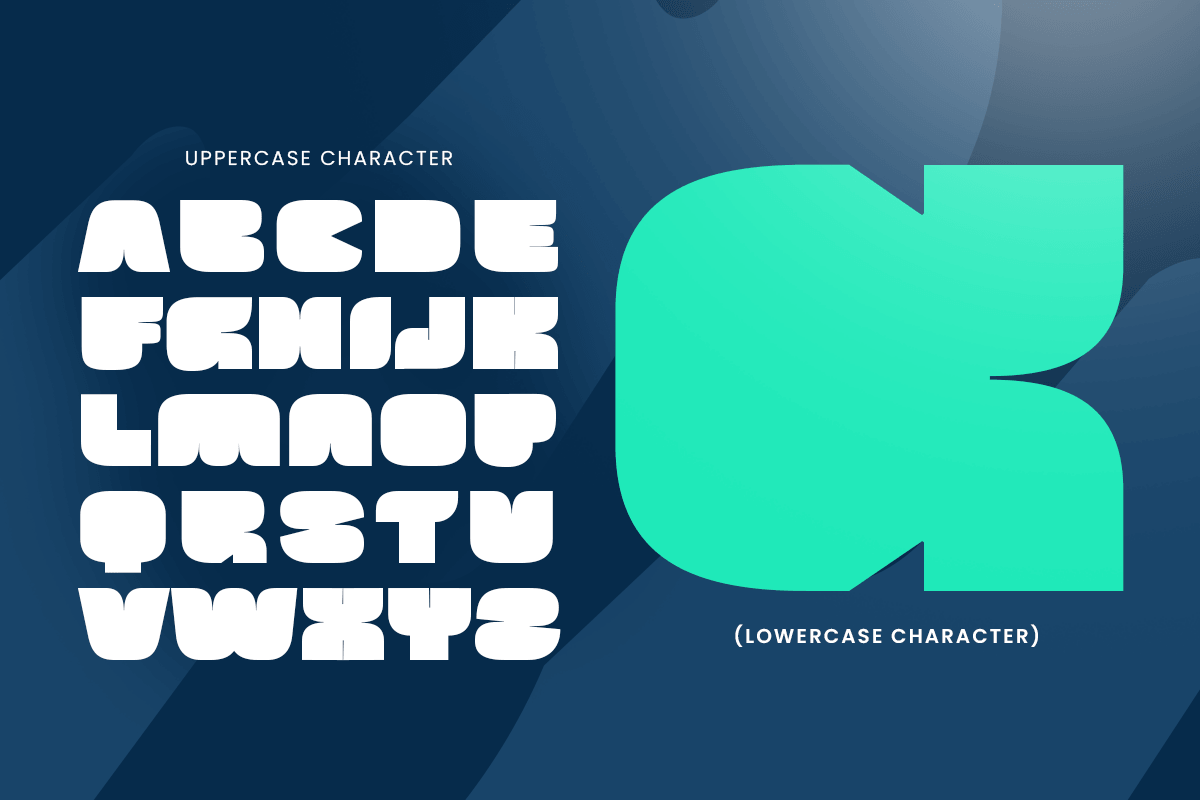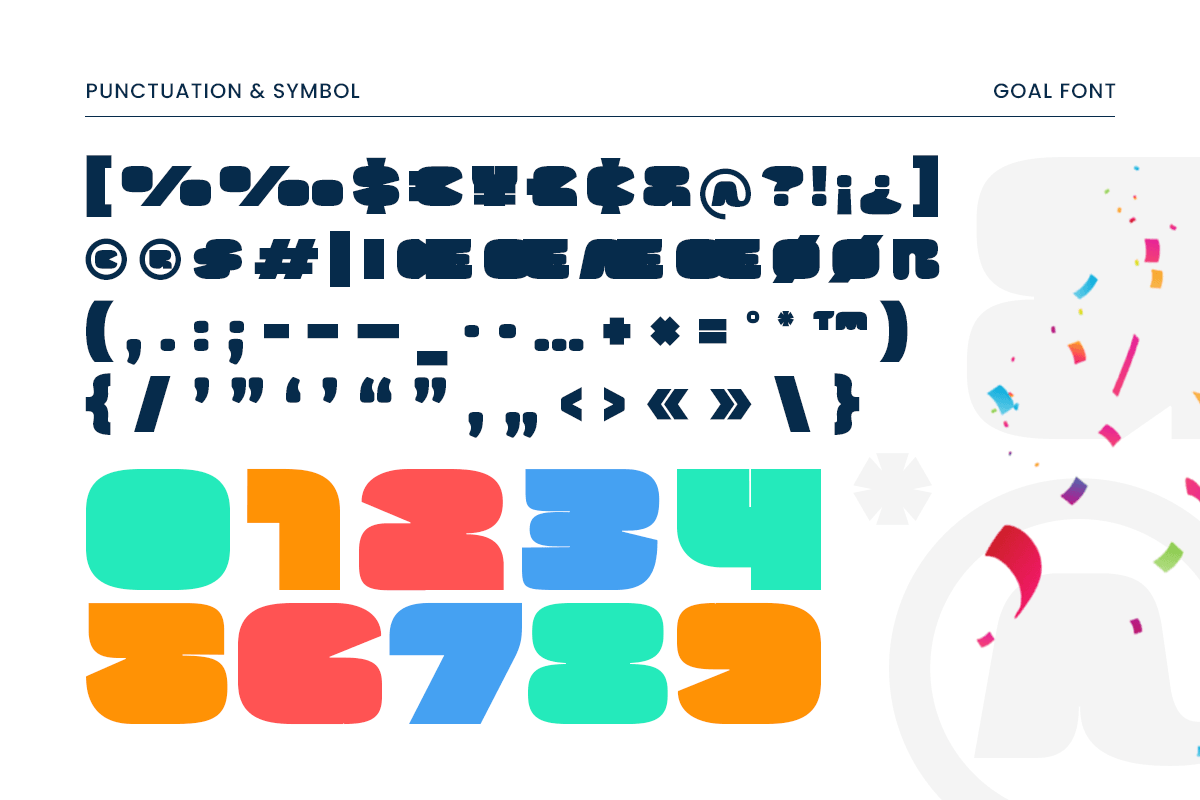
Goal – Logo Festival Football Cup Font
Goal – Logo Festival Football Cup Font is a versatile typeface ideal for various projects, including logos, branding, posters, blog headers, advertisements. The free version includes a full set of uppercase and lowercase letters, available in OTF format.